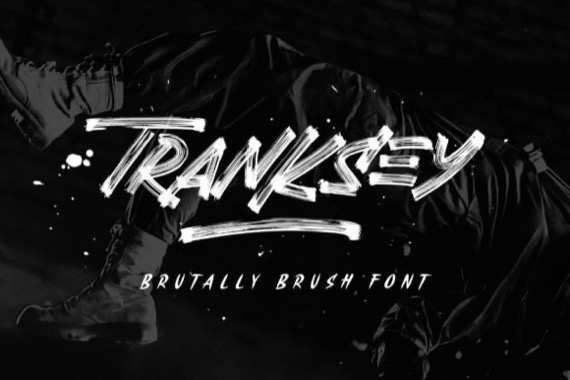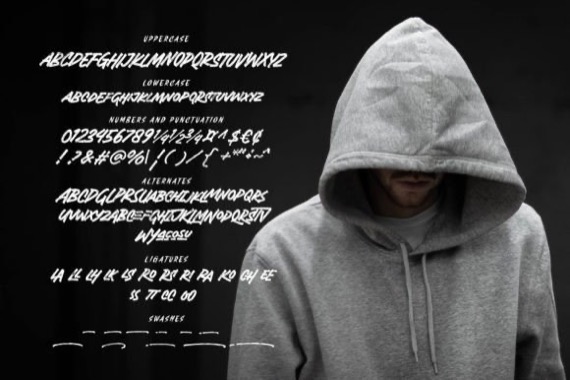
Introducing Tranksy Font by Arterfak Project, a brand-new brush font that is perfect for all your display and advertising needs! This highly detailed font is strong, fast, and energetic – making it ideal for merchandise, decals, posters, and more.
Tranksy is an all-caps character set. It also features lots of special characters as well as ligatures so you can create the perfect design. Plus with multilingual support, you can use this versatile typeface on projects across the world!
Tranksey Brush Handwritten Font